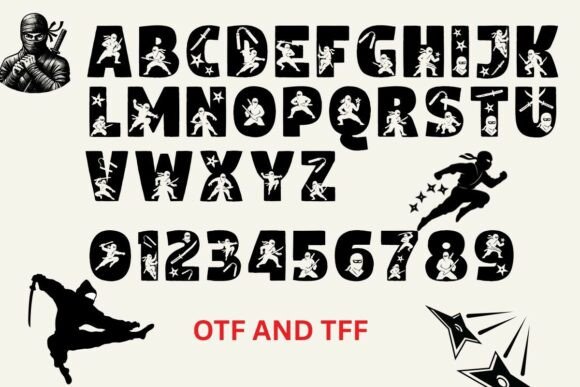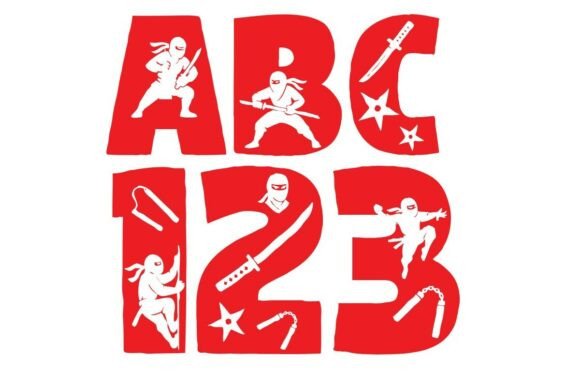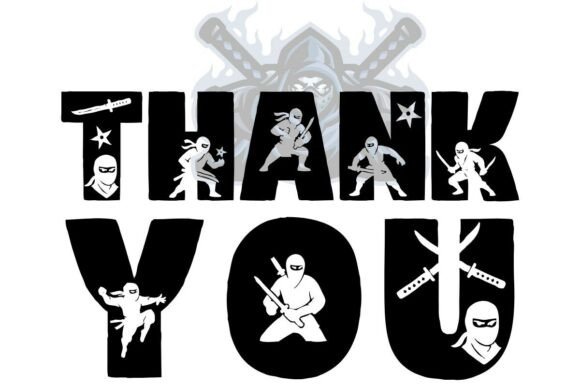
Introduction to Ninja Warrior Font
Step into the shadows with Ninja Warrior Font – a bold and striking typeface inspired by the stealth and strength of legendary warriors.
Designed for maximum impact, this all-caps display font brings an edge of mystery and power to your creative projects Whether you’re designing posters, t-shirts, logos, gaming graphics, or print-on-demand products, Ninja Warrior Font delivers sharp style with clean readability.
Key Features of Ninja Warrior Font
Why Choose Ninja Warrior Font?
Ninja Warrior Font offers exceptional quality and versatility, making it a valuable addition to your design toolkit. Whether you’re creating for personal projects or commercial use, Ninja Warrior Font delivers professional results.